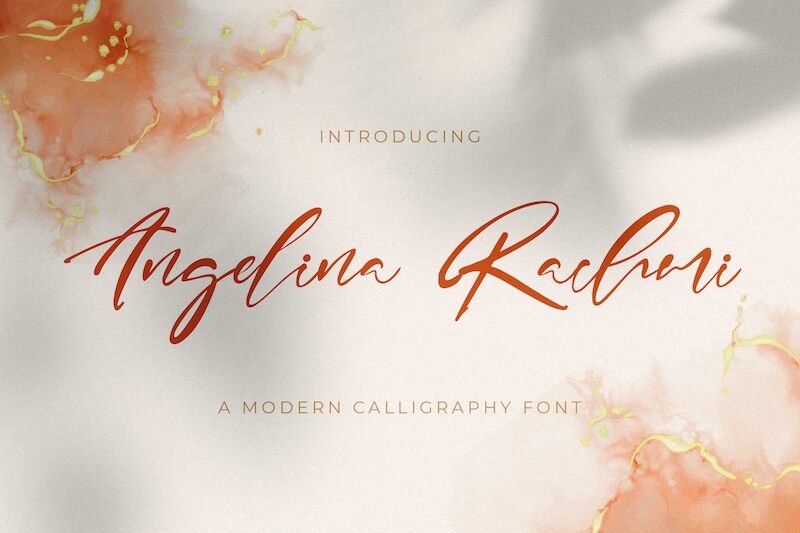
ANGELINA RACHMI
Angelina Rachmi is a modern calligraphy font designed by StringLabs Creative Studio. With its semi-light weight, this font exudes elegance and sophistication in every stroke. Its fluid curves and swashes make it perfect for wedding invitations, event posters, and other formal projects. Pair it with a bold sans-serif font for a striking contrast or use it alone to create a feminine and delicate design. Whether you're designing a logo or crafting social media graphics, Angelina Rachmi will add an air of grace to any project.